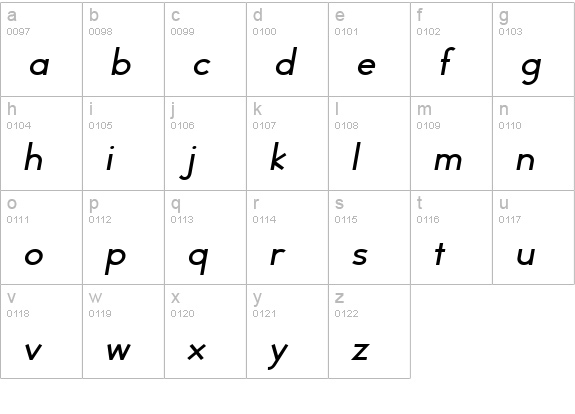
BacktalkSans BTN BoldOblique is a striking and versatile font that exudes a sense of confidence and modernity. Designed with a bold and oblique style, this font is perfect for making a bold statement and adding a touch of flair to any project. With its unique and eye-catching design, BacktalkSans BTN BoldOblique stands out from the crowd and grabs attention effortlessly. Its bold strokes and slanted angles give it a dynamic and energetic appearance, making it an ideal choice for headlines, titles, logos, and branding materials. This font is not only visually appealing but also highly legible, ensuring that your message is conveyed effectively. Whether used in print or digital media, BacktalkSans BTN BoldOblique maintains its clarity and readability, making it perfect for a wide range of applications. One of the best features of BacktalkSans BTN BoldOblique is that it is available for free download at FontsMarket.com. This means that you can access and use this font without any restrictions or limitations. It's a fantastic opportunity to enhance your designs and bring them to life with this bold and expressive font. So, if you're looking for a font that combines boldness, versatility, and a touch of uniqueness, look no further than BacktalkSans BTN BoldOblique. Download it for free at FontsMarket.com and elevate your designs to new heights.